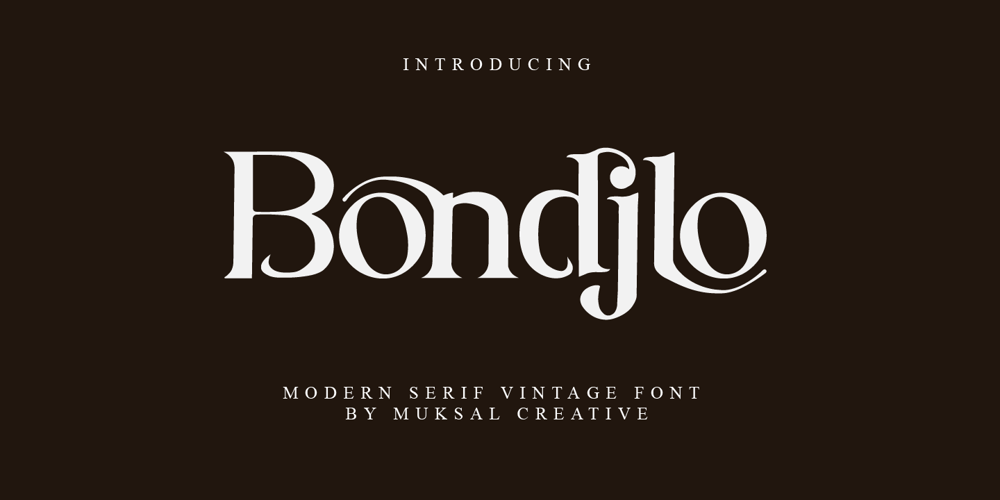
Bondjlo Font Family was designed by Muksalmina and published by Muksal Creatives. Bondjlo contains 1 styles and family package options. Bondjlo is font a vintange serif, and Bondjlo features unique and modern serif look and feel.is a fancy and modern serif font will elevate a wide variety of projects, from logos and stationery to magazine covers and social media posts. This typeface will take your designs to the next level!